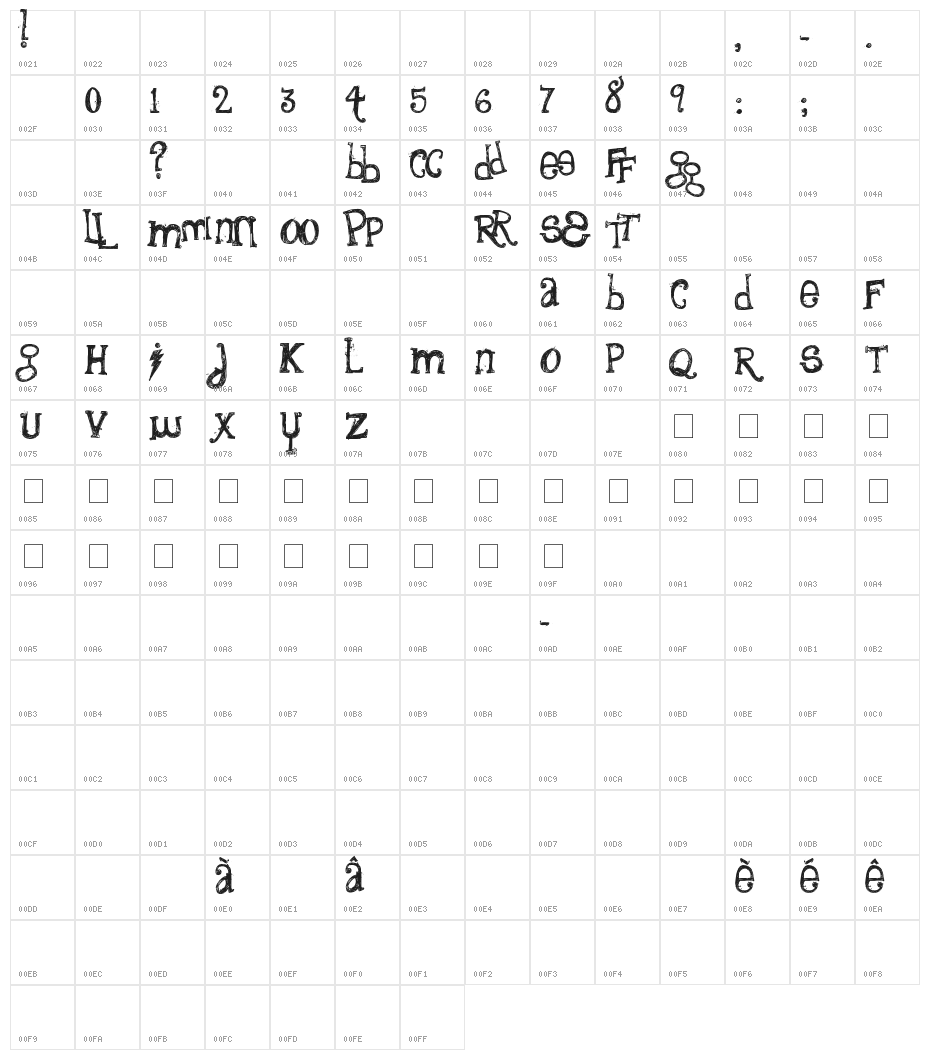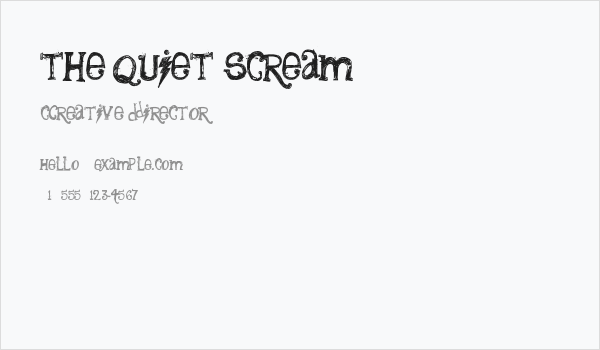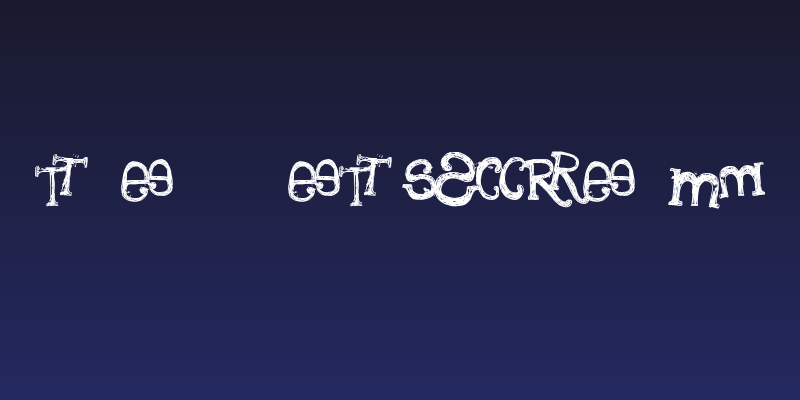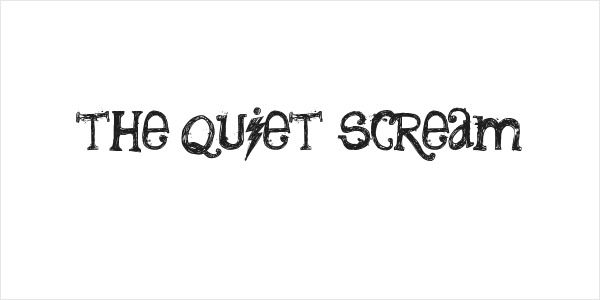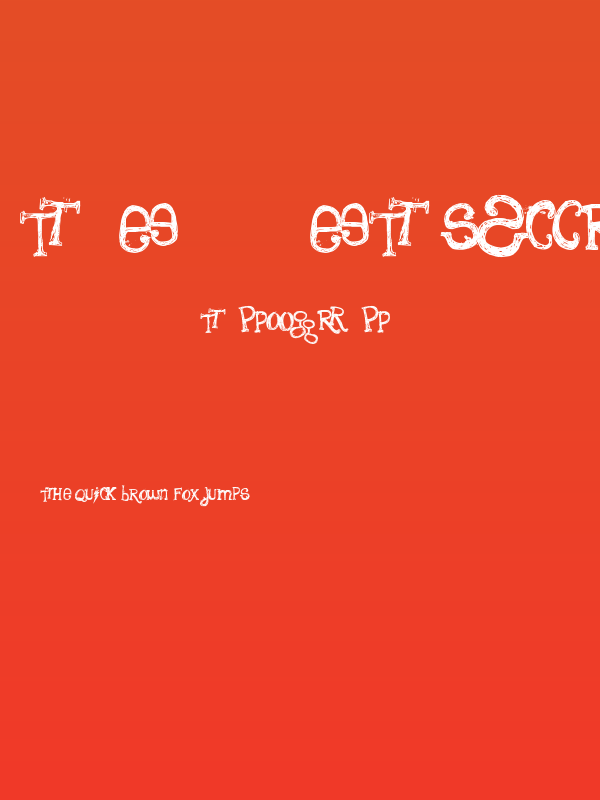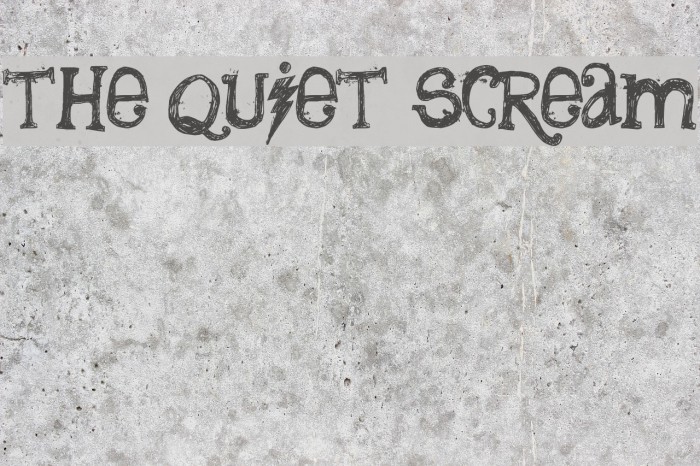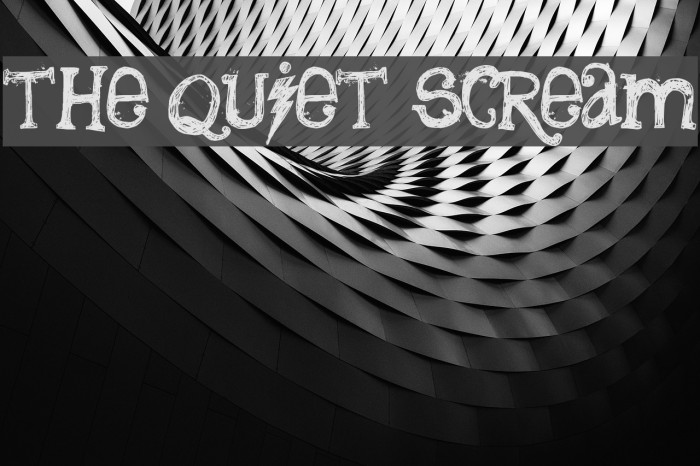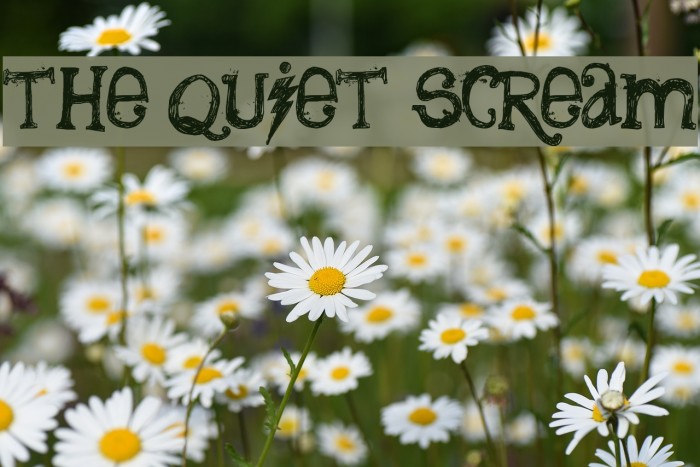
the quiet scream Font
the quiet scream Description
This font features a distressed, grunge style with a hand-drawn appearance. The characters are irregular and slightly chaotic, giving a sense of movement and energy. The uppercase and lowercase letters are distinct, with some letters incorporating unique elements like lightning bolts and exaggerated curves. The numbers and special characters follow the same rough, textured aesthetic, enhancing the overall edgy and rebellious feel. This font is ideal for projects that aim to convey a sense of rawness and individuality.
| Overall Style | Grunge, Edgy, Hand-drawn |
| Proposed Projects | Album covers, posters, streetwear branding, skateboarding graphics, and alternative event flyers. |